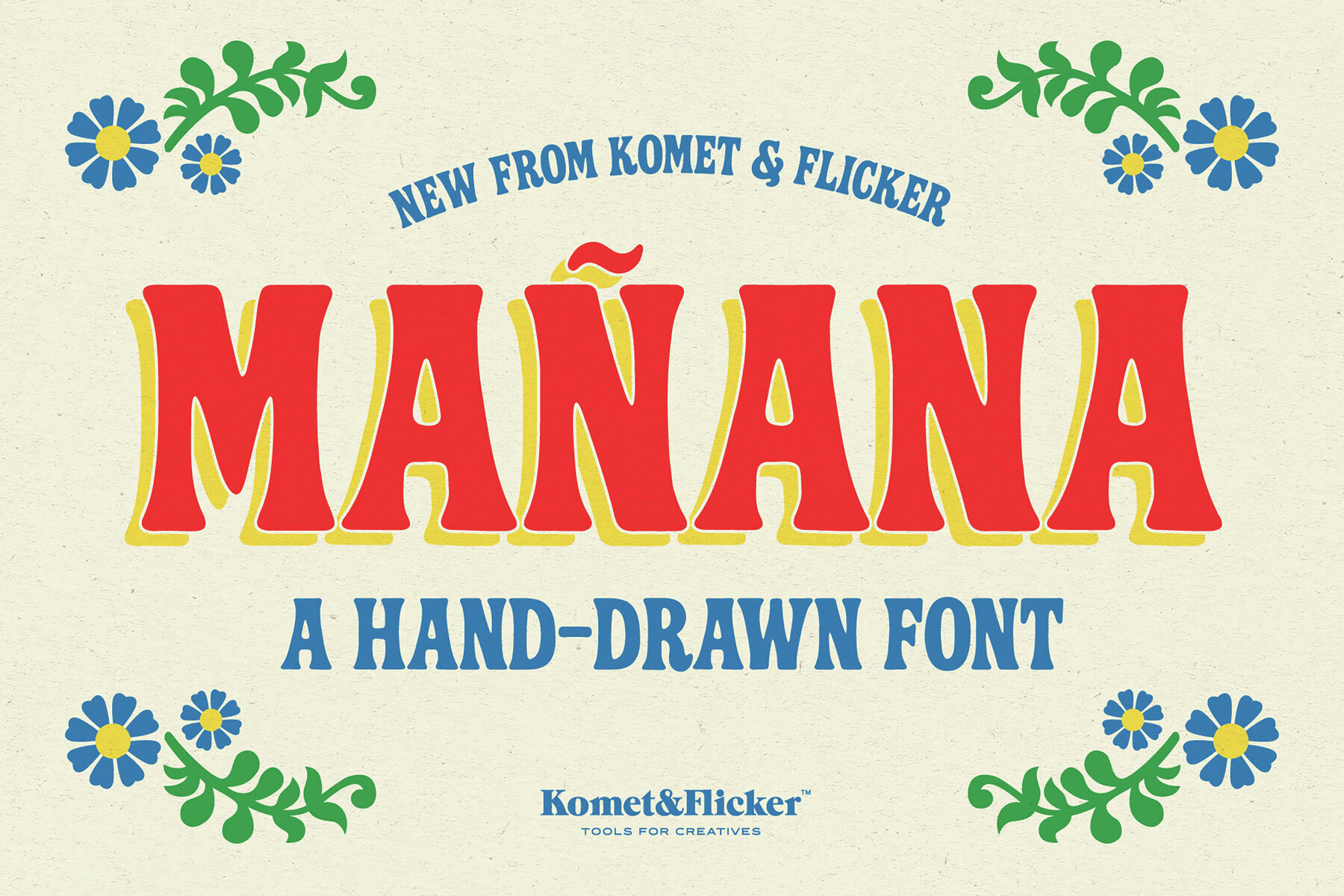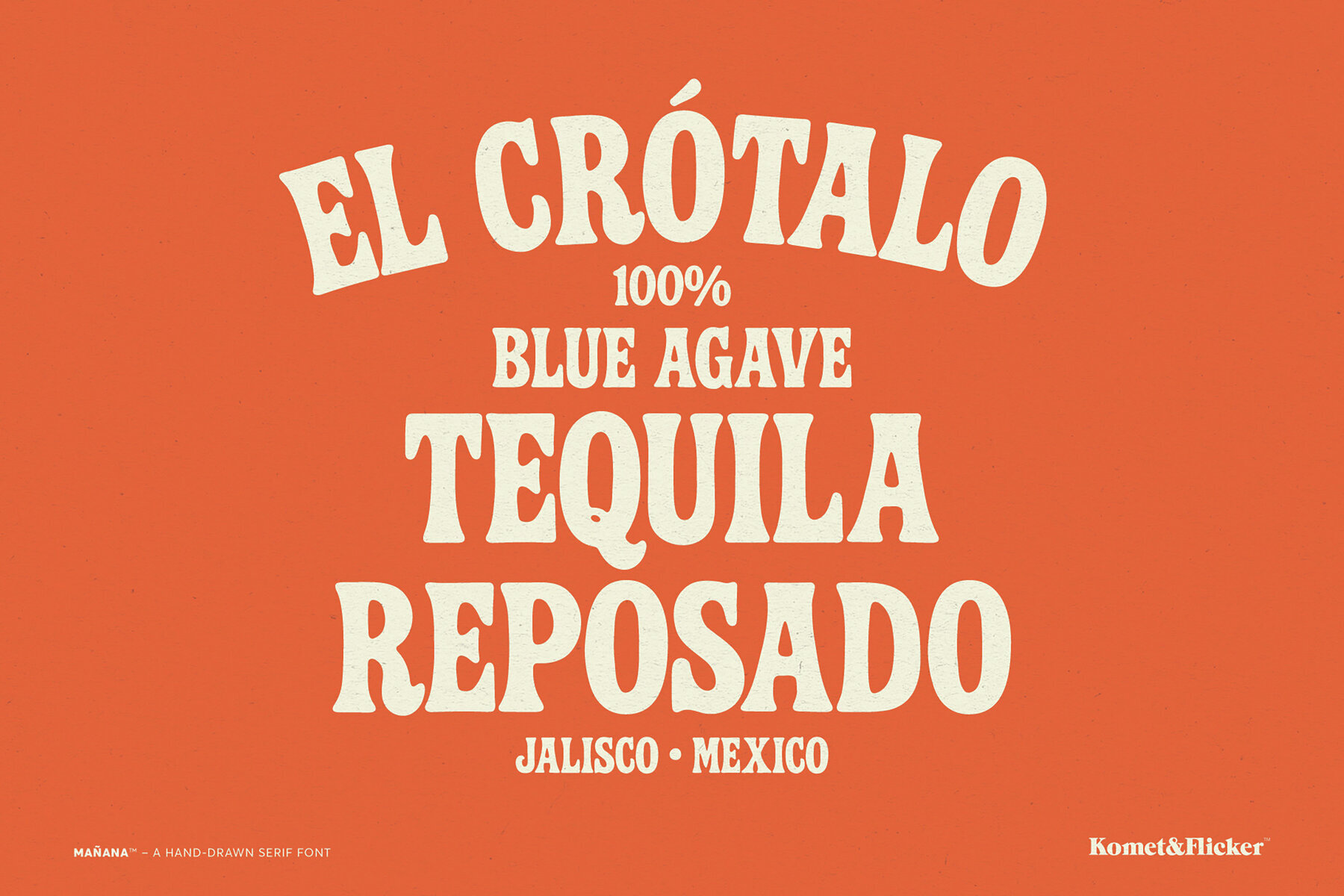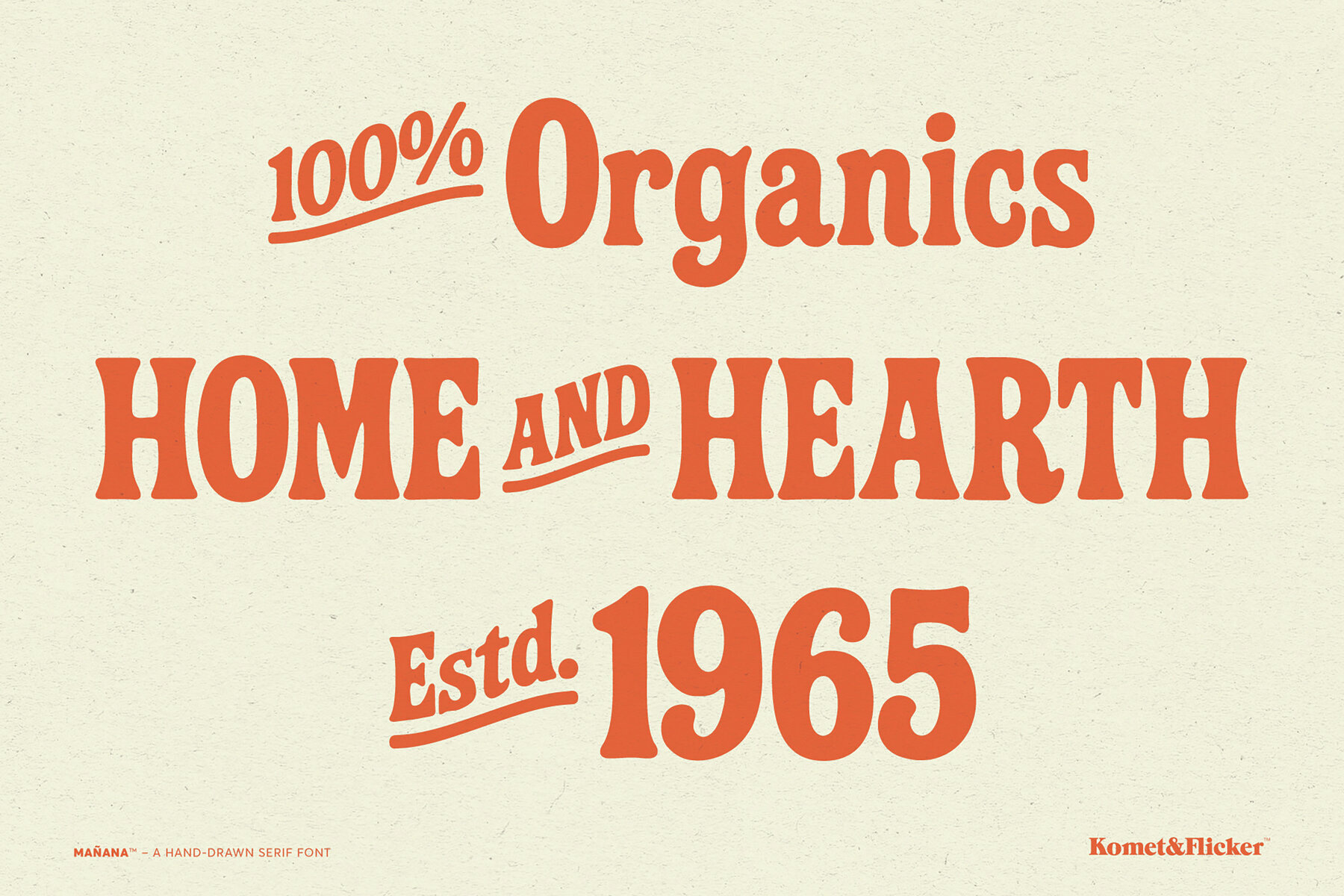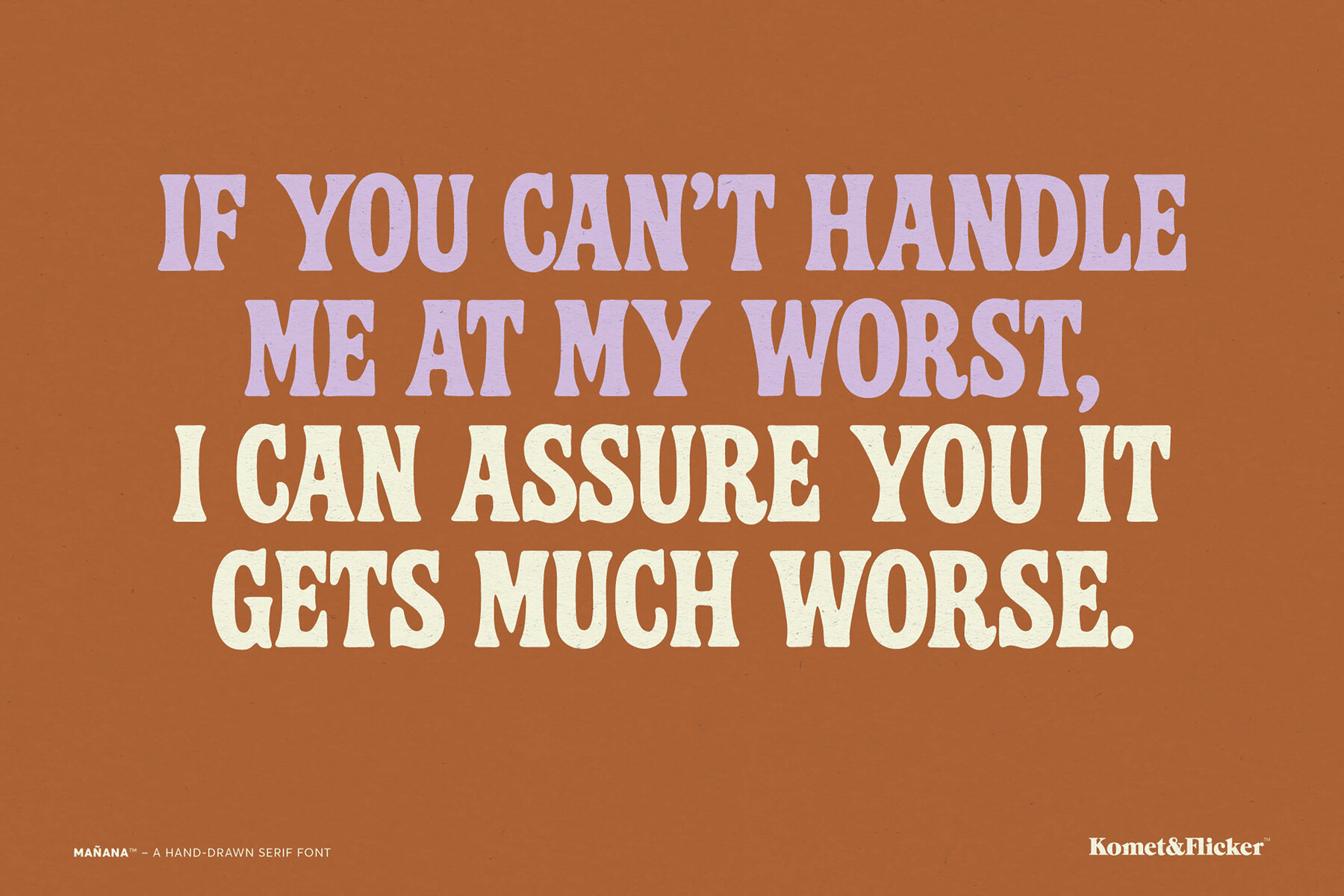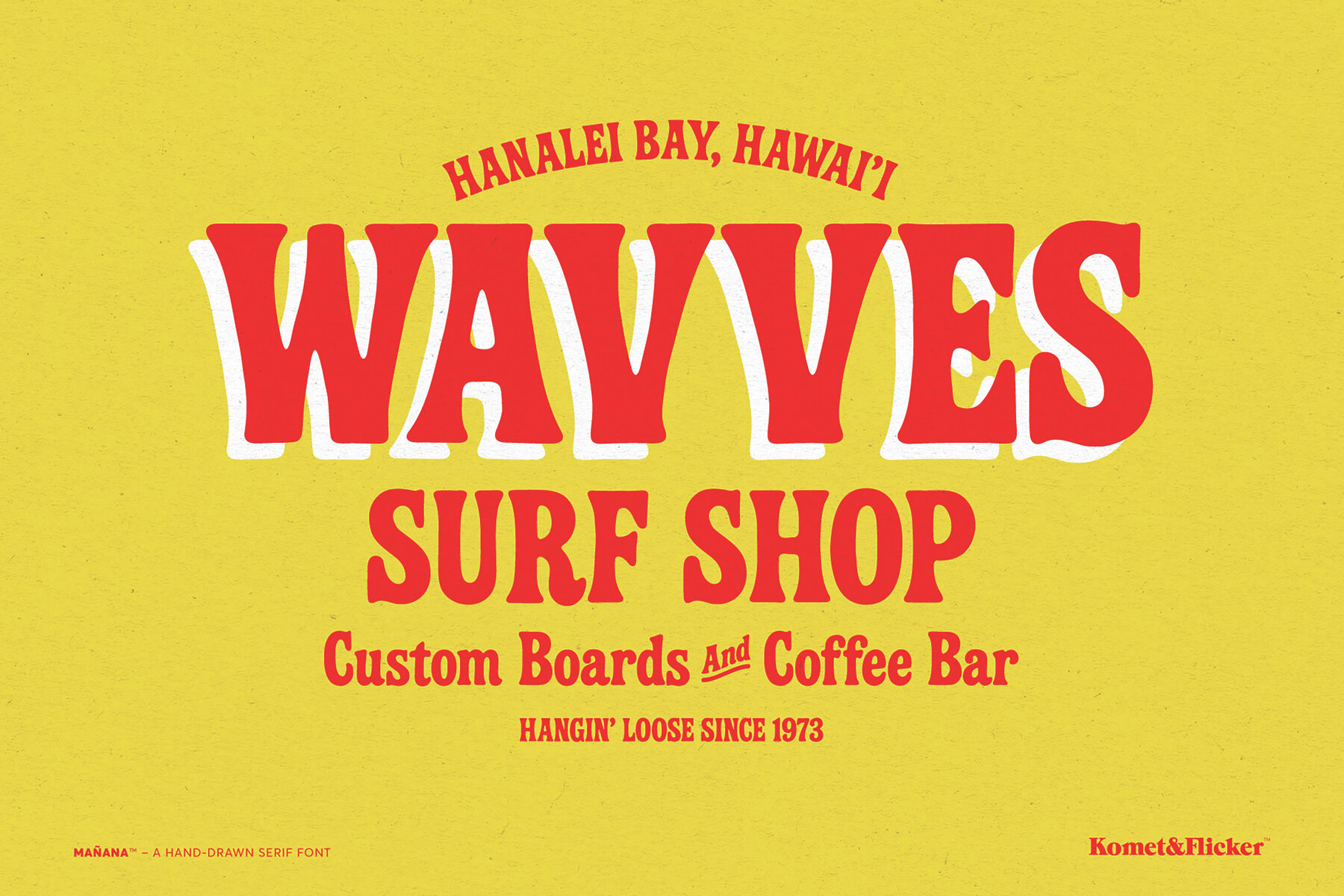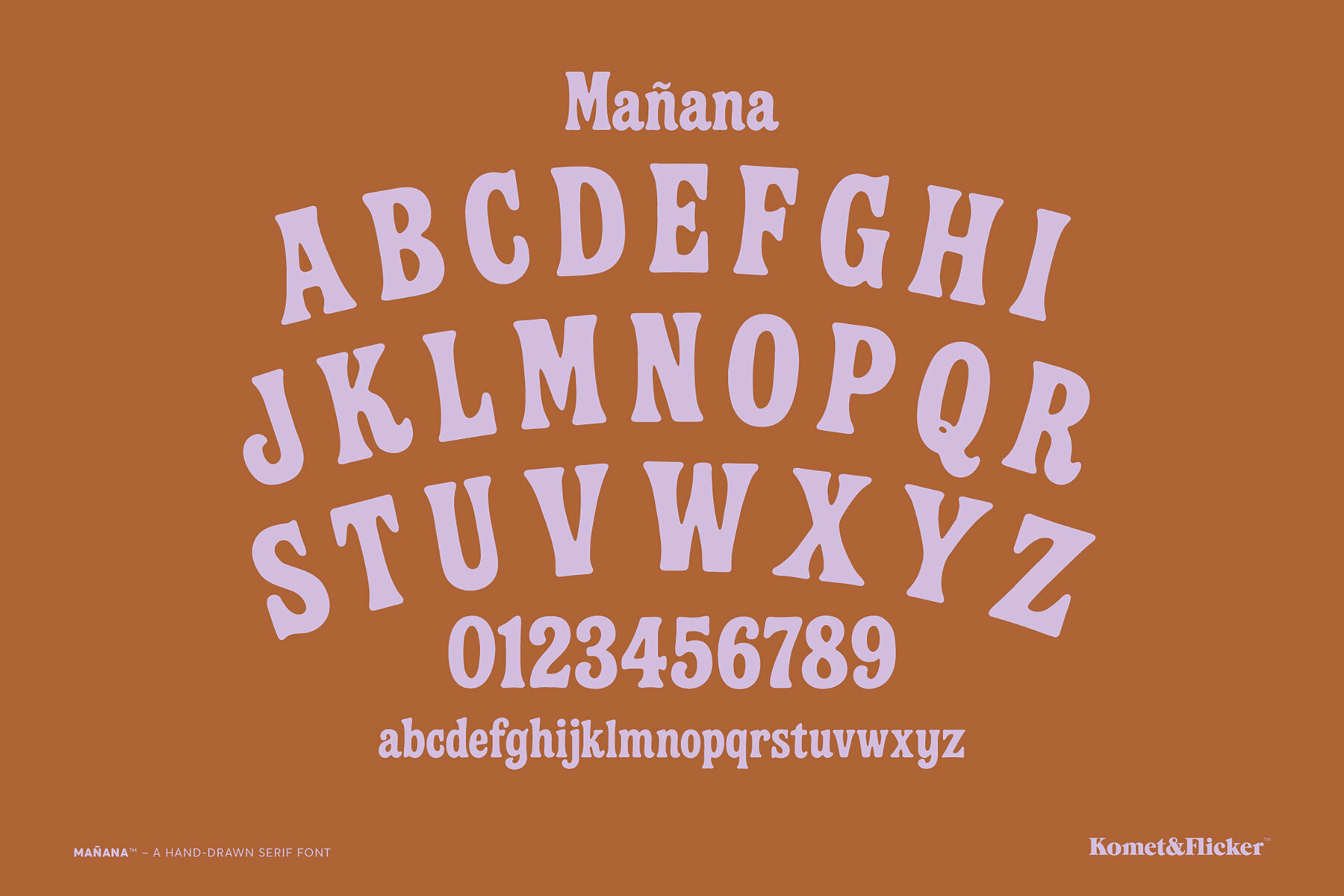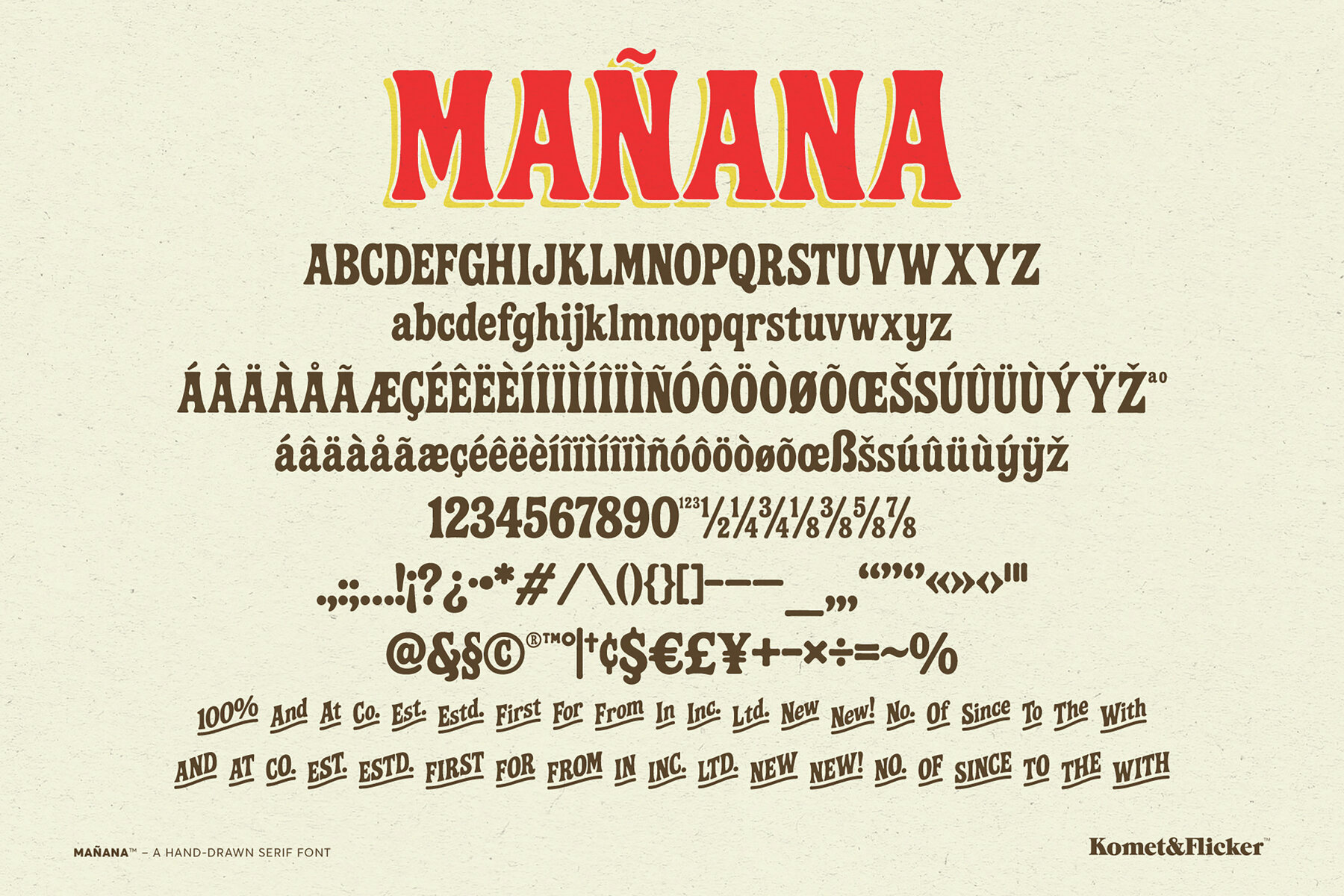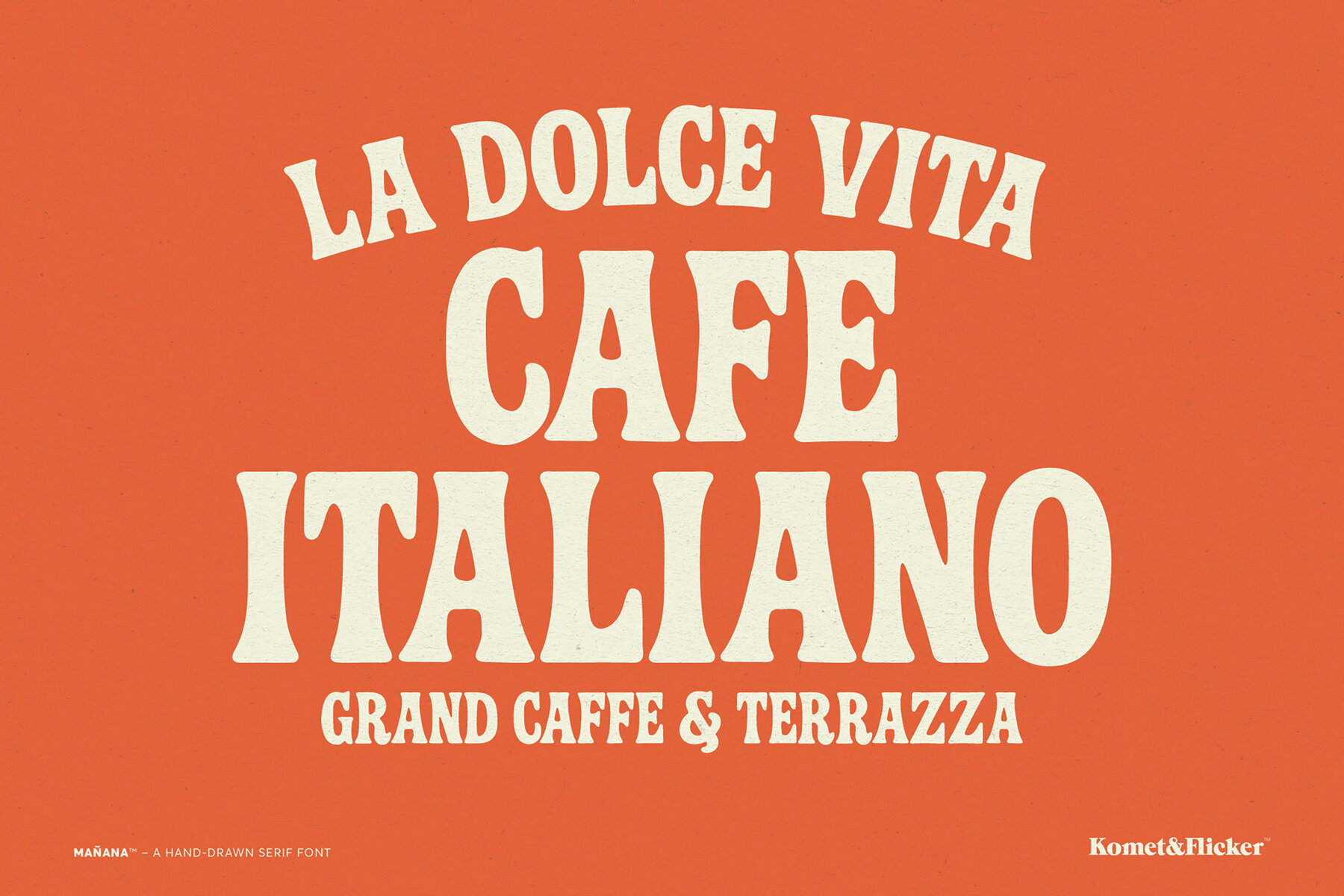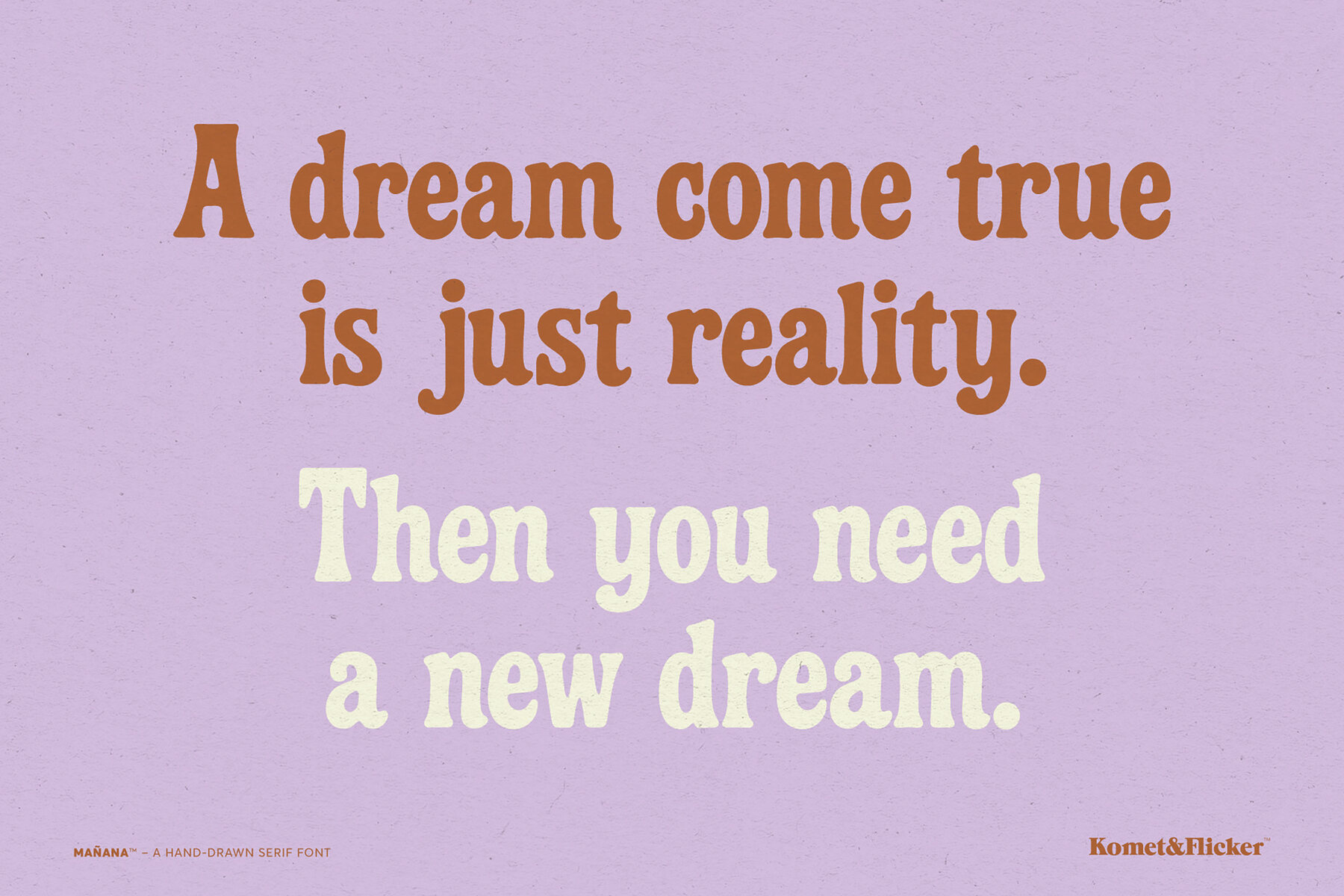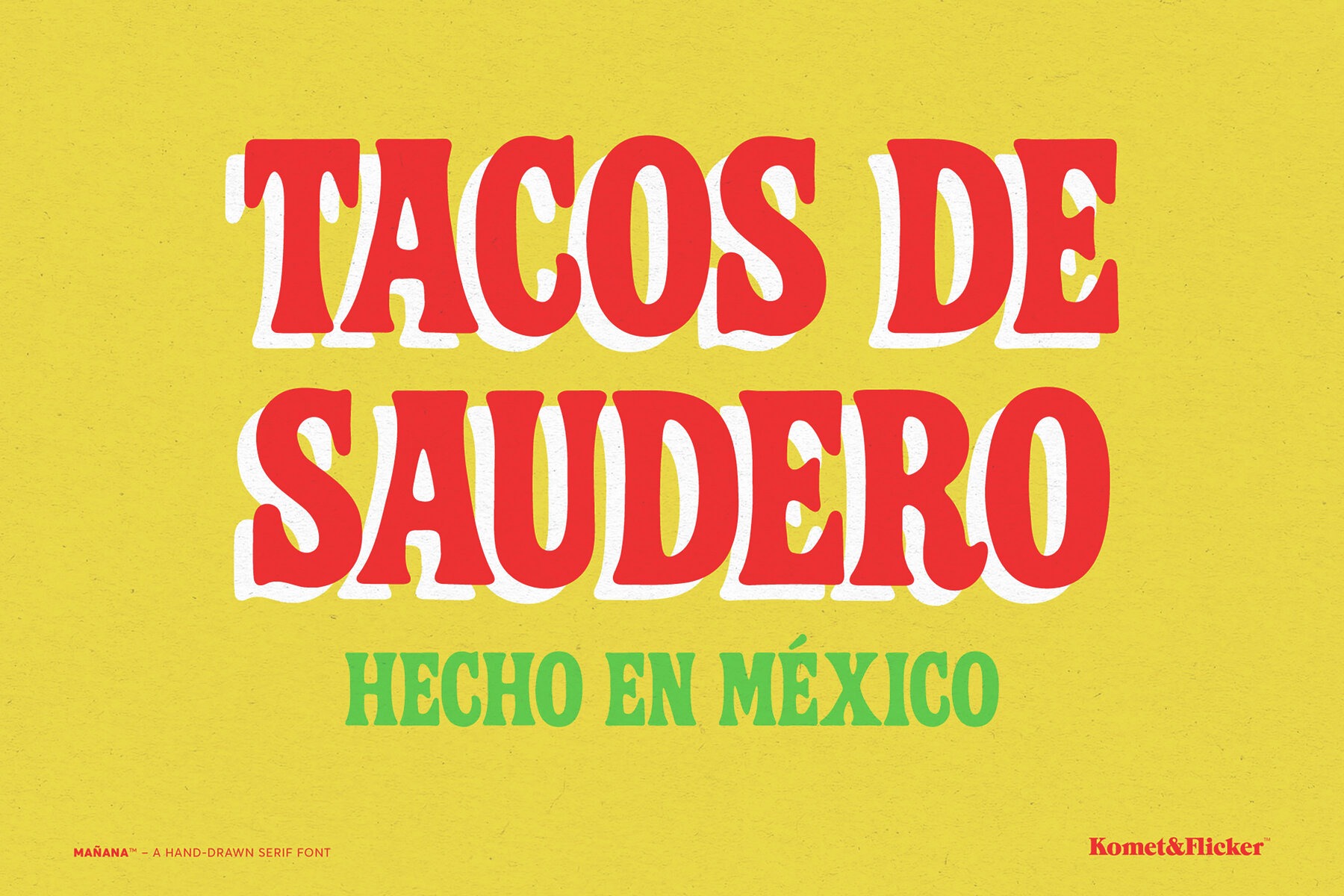
Mañana Font
Manana Regular
MAÑANA is an assertive serif font that draws its inspiration from the lively, hand-painted lettering found on Mexican wall murals and food trucks. It offers softly rounded edges combined with an unmistakably expressive character, infusing your designs with a touch of handmade charm and retro allure. This font includes a collection of 20 custom connecting word glyphs, available in two distinct styles—all caps and initial caps—ideal for imparting a tailored flow to any text. Accessing extra custom glyphs is straightforward in design applications: in Illustrator, navigate to "Type → Glyphs"; in Photoshop, proceed through "Type → Panels → Glyphs Panel."MAÑANA: Bold Serif Embracing Mexican Mural Flair